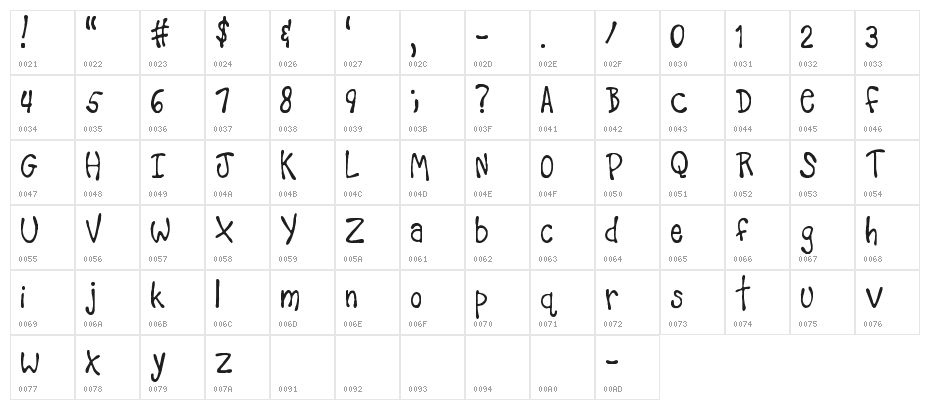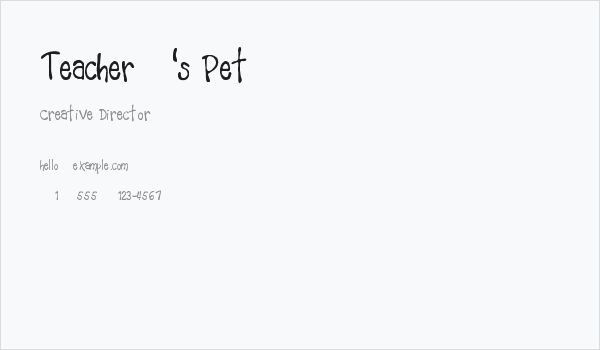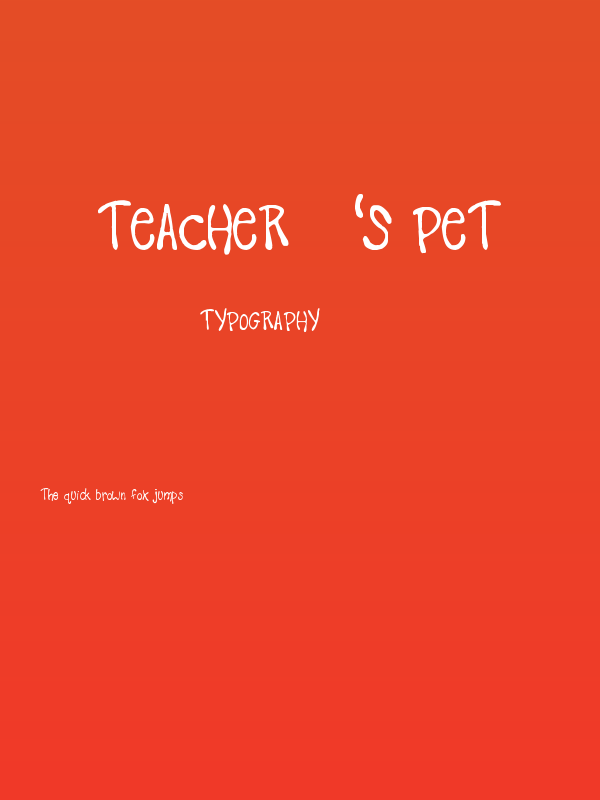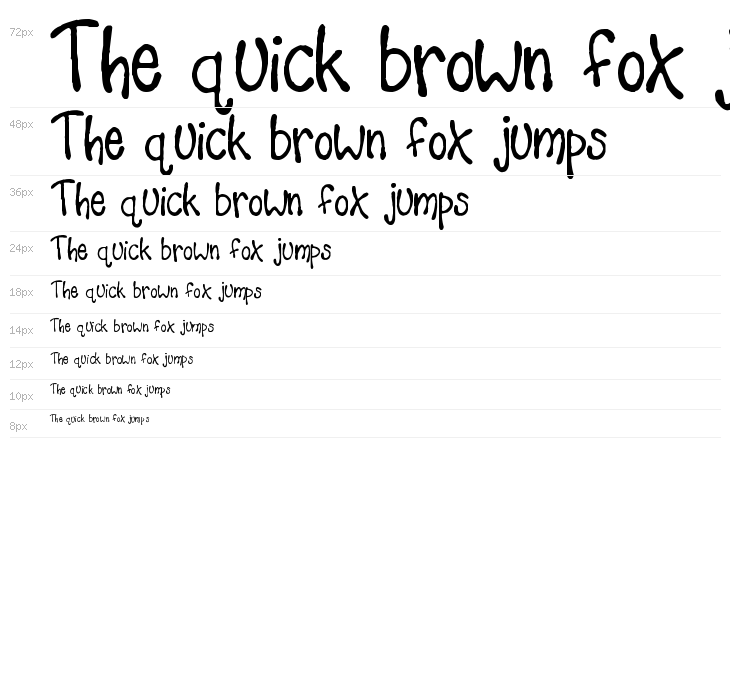
Teacher's Pet Font
Teacher's Pet Description
This font exhibits a playful and whimsical handwritten style, characterized by its irregular and slightly uneven strokes that mimic the look of casual handwriting. The letters are rounded with a friendly and approachable appearance, making it ideal for informal and creative projects. The uppercase and lowercase letters maintain a consistent style, with a slight tilt that adds to the playful nature. The numbers and special characters follow the same design, ensuring uniformity across all glyphs. Its unique charm and personality make it stand out, perfect for projects that require a touch of fun and creativity.
| Overall Style | Playful |
| Use Case | Headlines, Logos, Informal Text |
| Proposed Projects | Ideal for children's books, greeting cards, playful branding, and educational materials. |